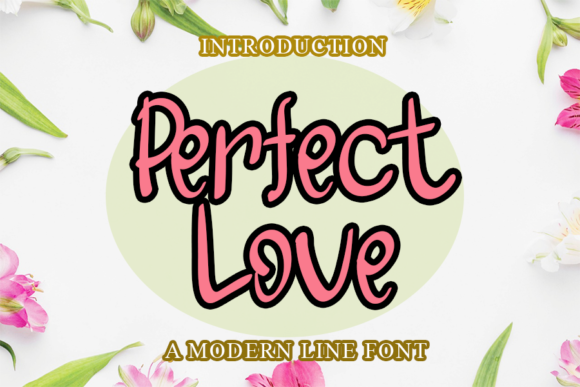
Perfect Love Font
Introducing the Perfect Love Font, an exquisite script font that will add an air of charm and elegance to your designs. This enchanting typeface is the brainchild of the talented merge354 and is specifically crafted to serve as the ideal adornment for your Christmas labels.
With its graceful curves and romantic flair, the Perfect Love Font exudes a timeless appeal. Each letter is meticulously crafted to evoke a sense of warmth and intimacy, making it the perfect choice for capturing the spirit of the holiday season. Whether you're designing festive cards, heartwarming invitations, or eye-catching gift tags, this font will infuse your creations with a touch of Christmas magic.
Beyond its seasonal allure, the Perfect Love Font is a remarkably versatile typeface that can elevate any design project. Its delicate strokes and flowing lines lend an air of sophistication to logos, headings, and t-shirts. The font's versatility extends to letterhead, signage, and posters, ensuring it meets the needs of a wide range of creative endeavors.
Embrace the Perfect Love Font and let its beauty enhance your designs. Its exquisite charm and endless applications make it an indispensable tool for any design enthusiast seeking to add a touch of elegance to their work.